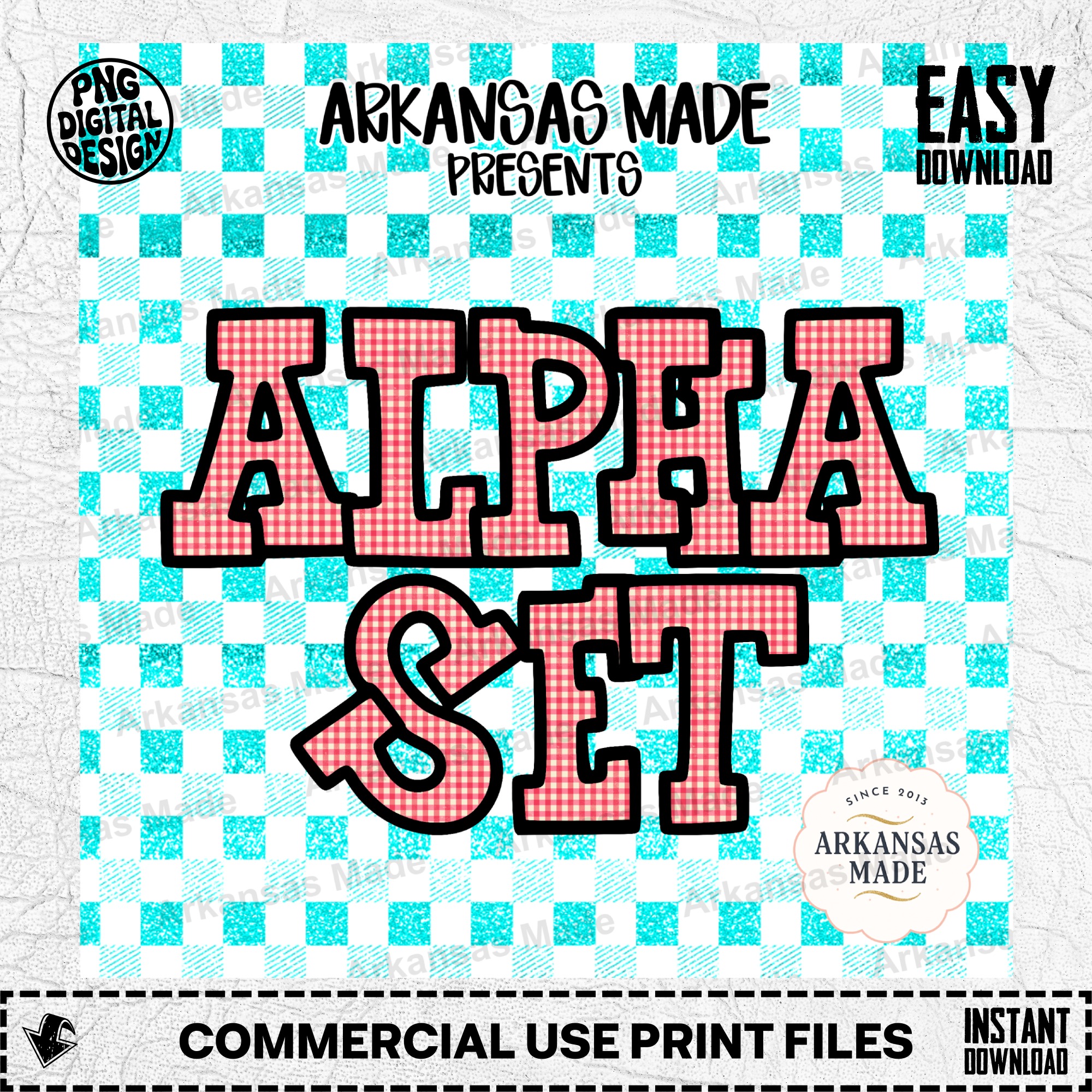
Get the perfect Red Gingham Alphabet PNGs for your farmhouse designs and DIY projects! This charming plaid letter set is ideal for crafters seeking a rustic, country style. Each high-quality transparent digital letter brings a cozy, classic aesthetic to your creations. These versatile alpha PNGs are perfect for designing personalized gifts, custom apparel, unique home decor, or engaging classroom materials. Delight your friends and family with custom items for baby showers, birthdays, or housewarming celebrations.